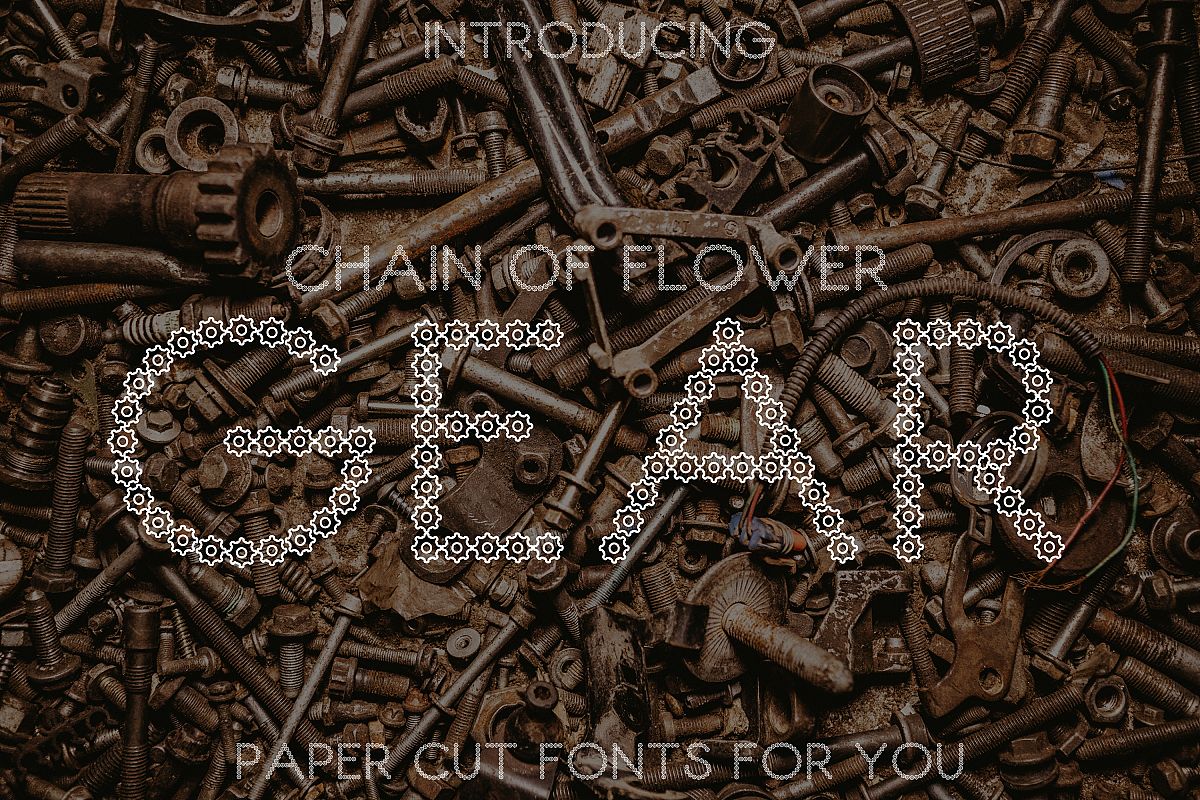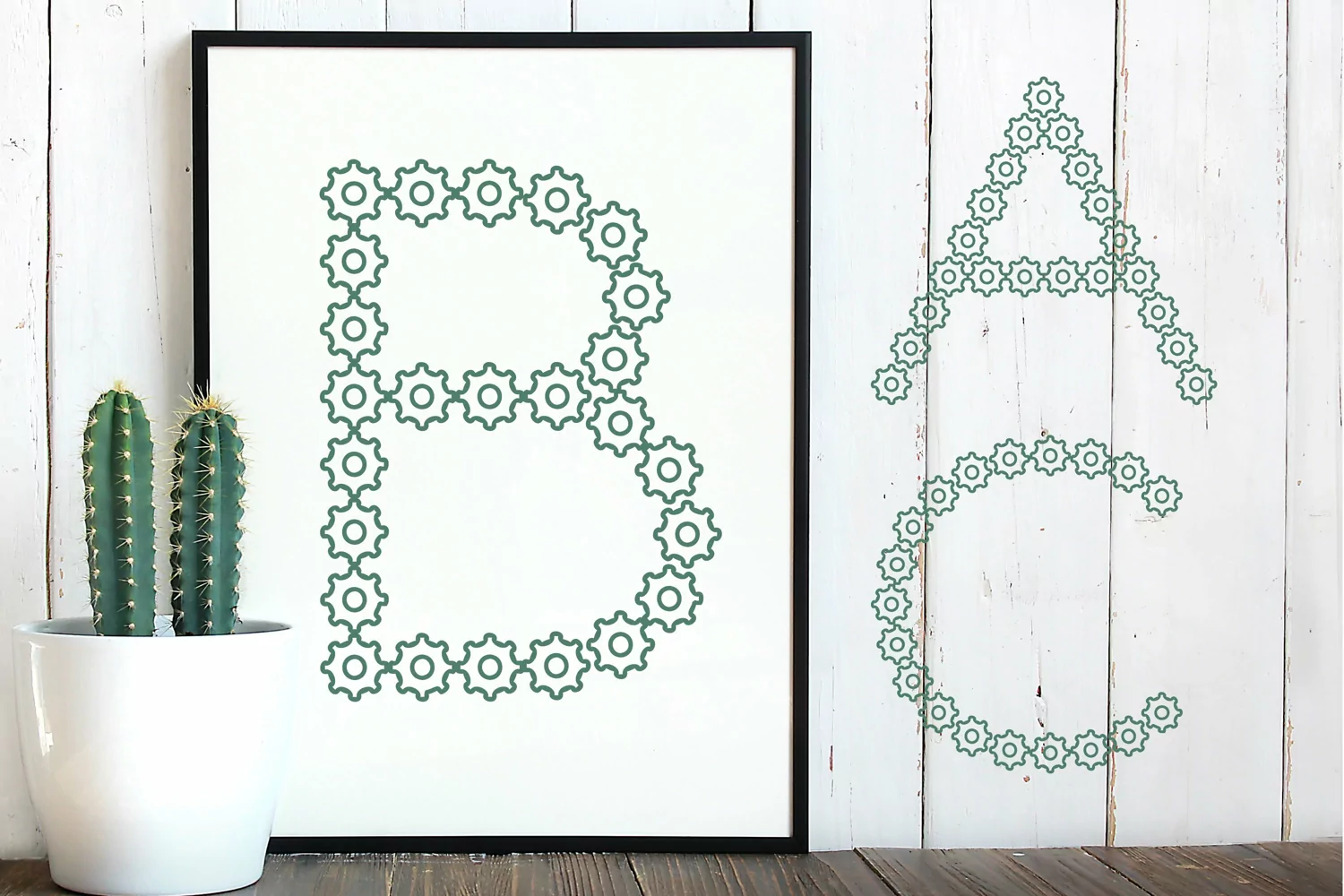
Chain of Flower Gear Font
Presenting Cute font for you. This Special Paper Cut Chain of Flower Gear Font can be used in tons of projects specially in child and new born projects. You can use it for craft purpose and this will looks great on shirts, printing material and other stuff.
3- Super Cute and Creative, Papercut Style